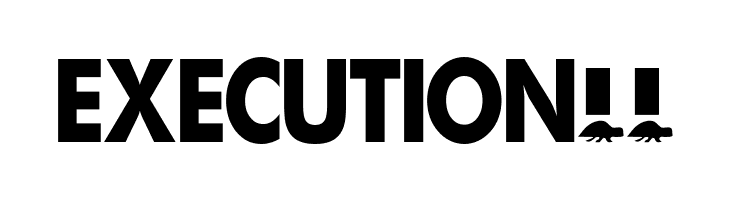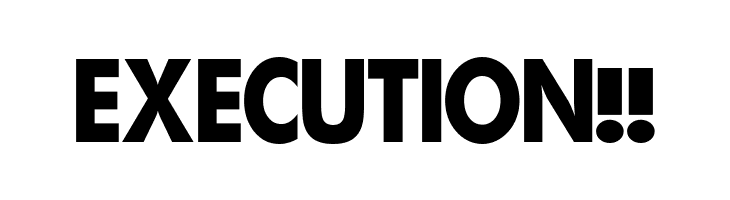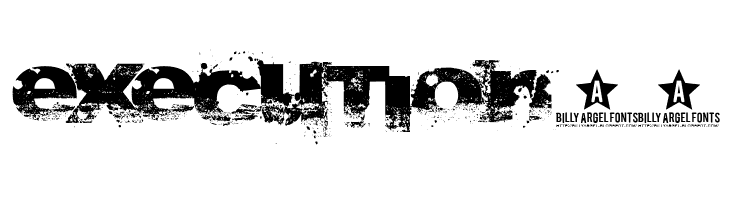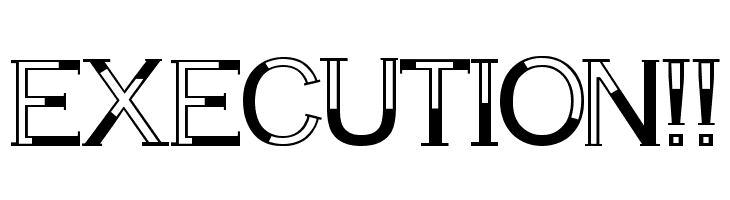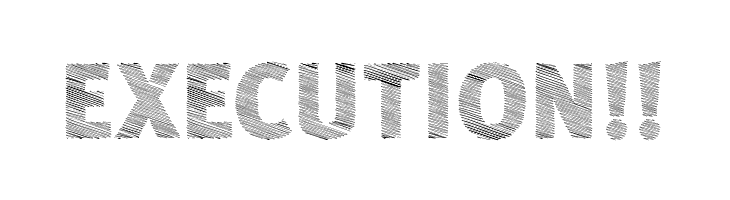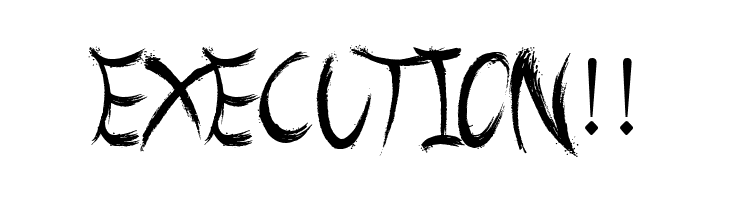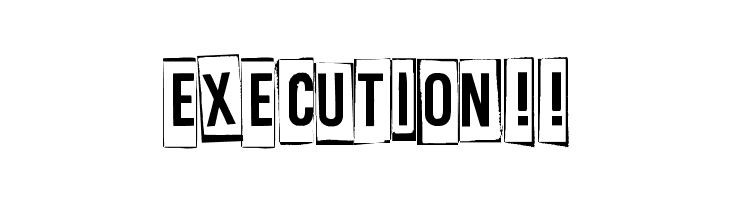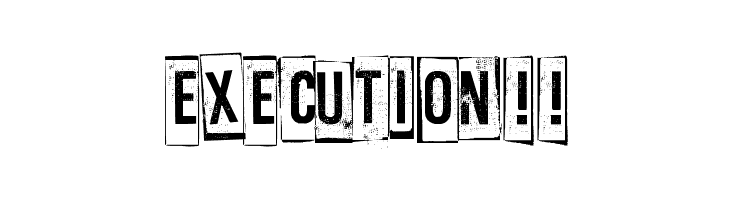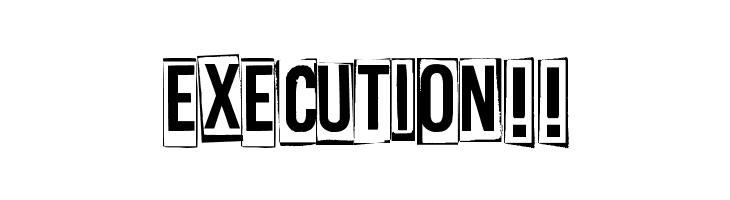
An elegant, flowing script font with smooth, cursive strokes.
A fluid, elegant script font with a handwritten style.
A rounded, modern font with smooth curves and consistent stroke width.
A modern, rounded font with a friendly and approachable style.
A bold, handwritten-style font with dynamic brush strokes.
A bold, expressive script font with a hand-drawn, dynamic style.
A bold, angular font with a modern, edgy style inspired by Asian calligraphy.
A bold, angular font with a modern, futuristic style.
A graceful script font with fluid, cursive strokes and connected characters.
An elegant, cursive font with fluid, connected strokes and a refined aesthetic.
A playful handwritten font with bold, dynamic strokes and a lively aesthetic.
A playful, handwritten font with smooth curves and a lively style.
A playful, cursive script font with dynamic, flowing letterforms.
A flowing, cursive script font with a natural handwritten style.
A flowing, cursive font with a handwritten, elegant style.
A bold, heavy font with a unique textured pattern for dynamic visual appeal.
A modern, decorative font with hollow, outlined characters.
A playful, sketchy font with a hand-drawn, textured appearance.
A bold, distressed font with a grunge aesthetic, perfect for edgy designs.
A bold, grunge-style font with a distressed, textured appearance.
A dynamic, cursive script font with a bold, handwritten style.
A bold, distressed font with boxed characters and a vintage feel.
A bold, distressed font with a vintage, grunge aesthetic.
Bold, boxed font with a distressed, vintage style.
Bold, distressed font with a boxed, cut-out style.
A bold, distressed font with a vintage, grunge aesthetic.
A bold, expressive brush-style font with dynamic strokes and artistic flair.
A playful font with bug-themed embellishments on bold, rounded characters.
Bold, sans-serif font with a strong, modern presence.
An ornate and decorative font with intricate, flowing lines and dramatic flair.
A decorative and artistic font with intricate swirls and flourishes.
An elegant, italic script font with intricate flourishes and dynamic style.
An artistic, left-leaning font with gothic and whimsical elements.
An intricate and decorative outline font with artistic flair.